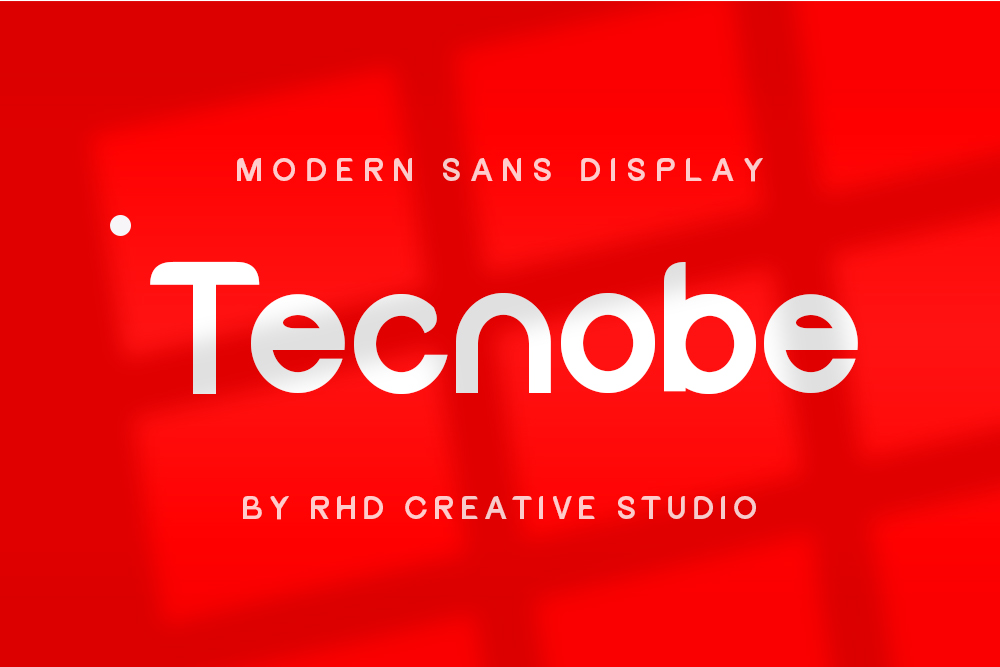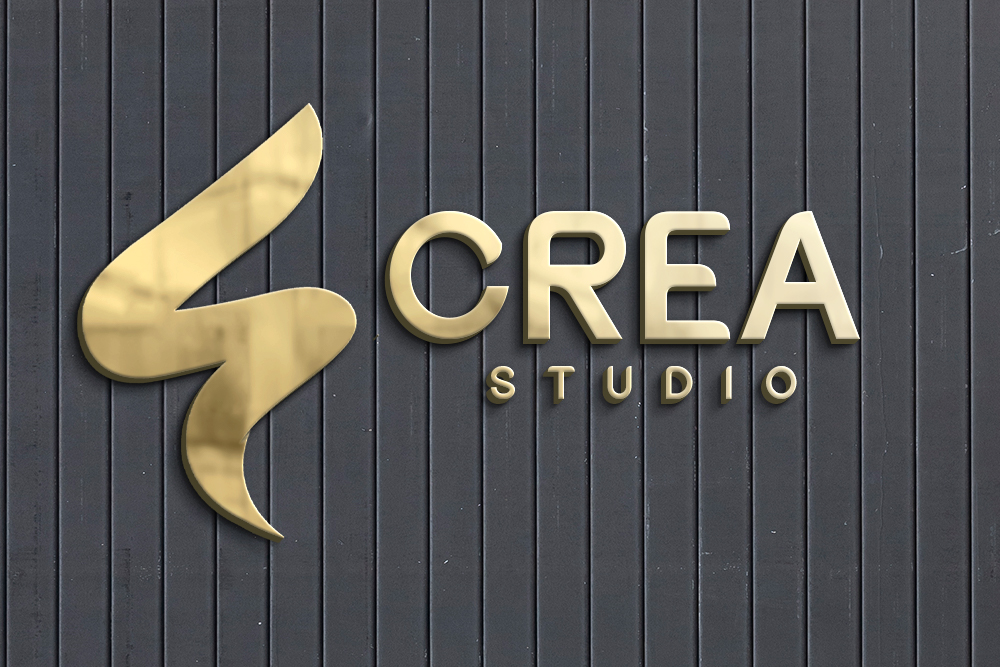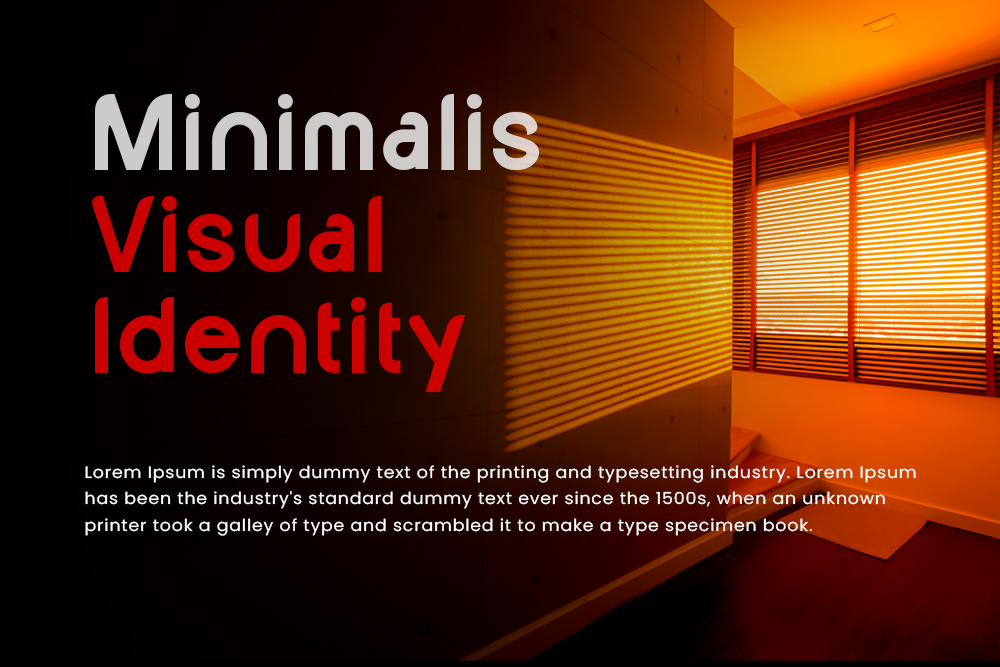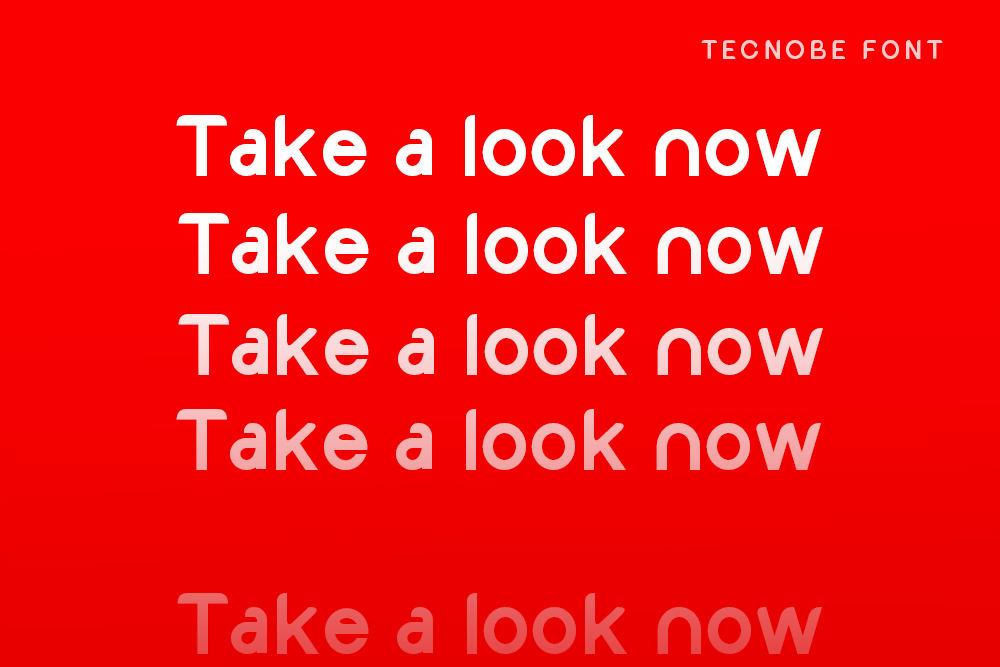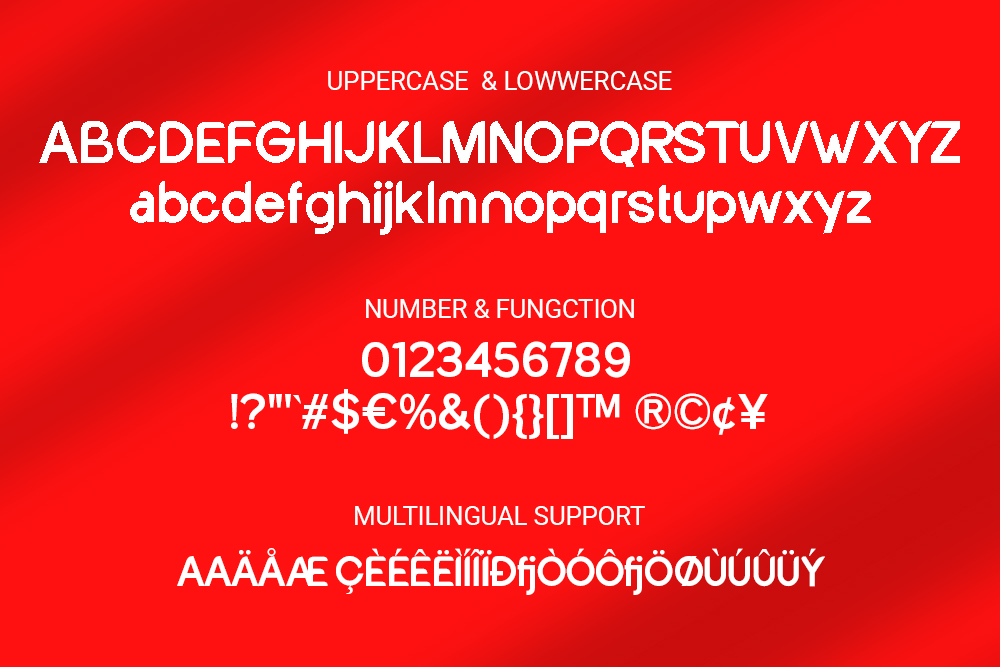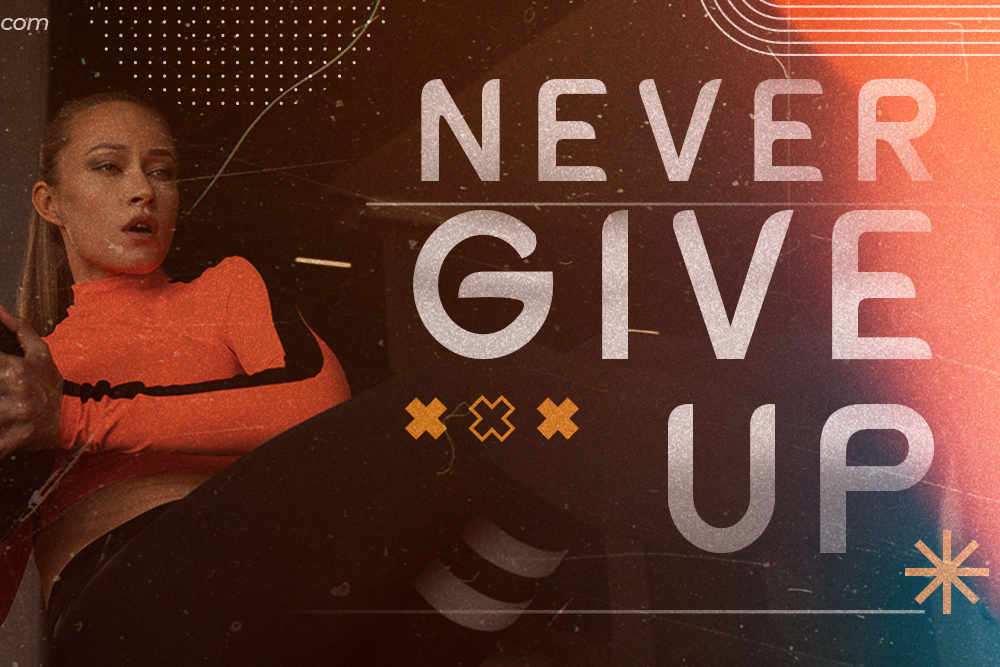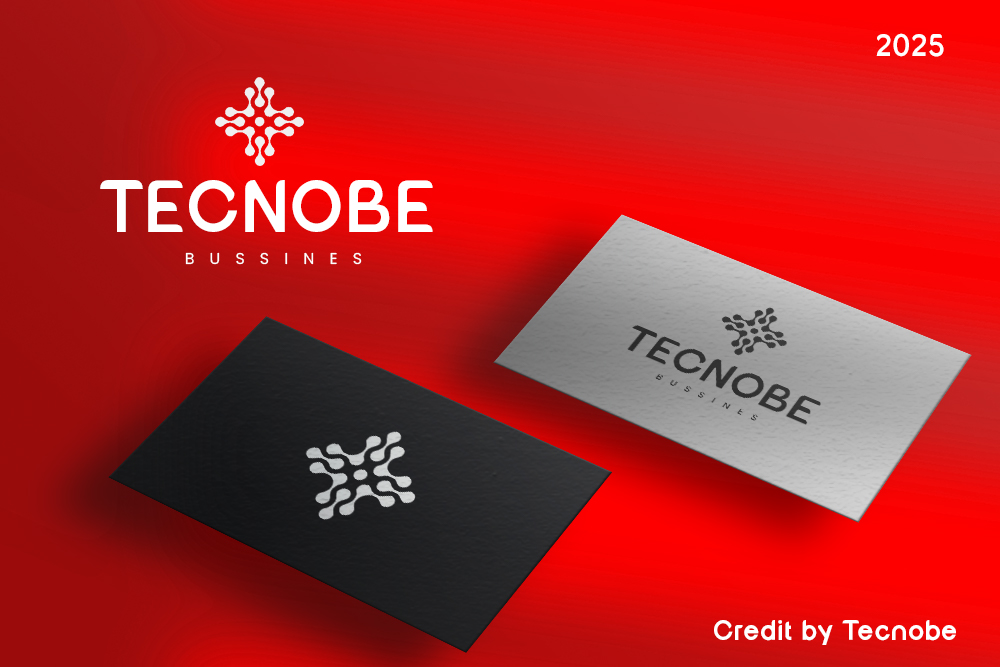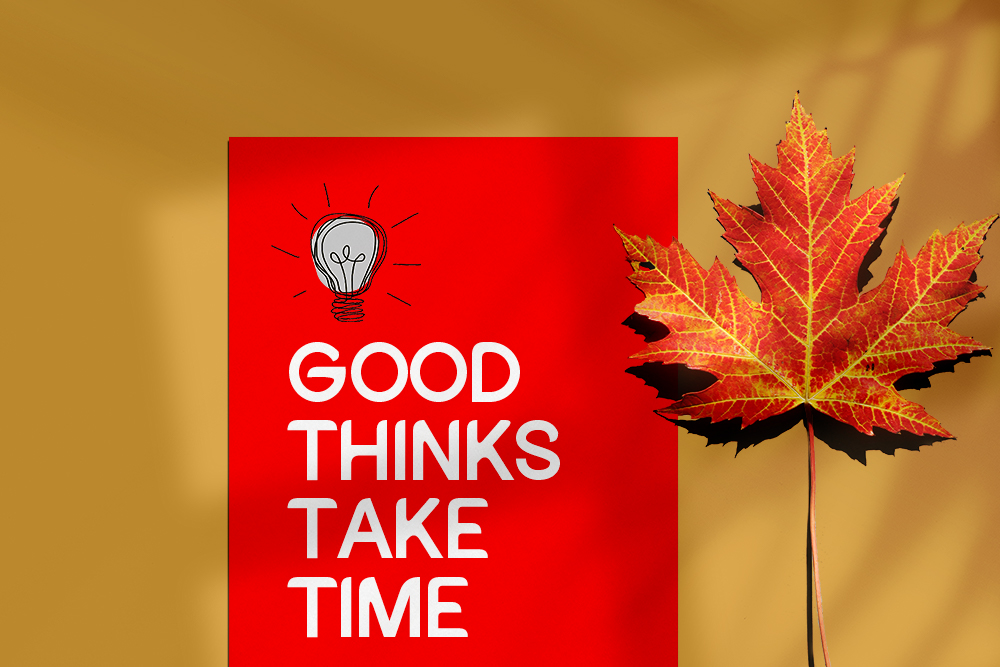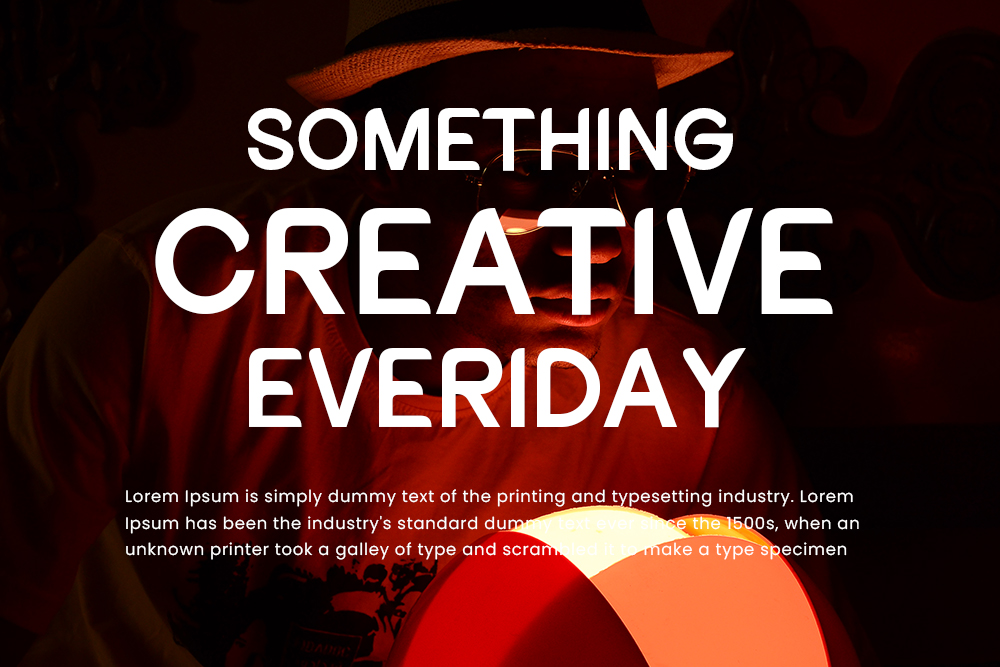
Tecnobe Modern Sans Display Font
Tecnobe Modern Sans Display Font with Handmade character. Tecnobe bring Modern Sans Display, Modern font to make your design project stand out! Tecnobe is a perfectly choice for any creative endeavor, creating, modern, chic, lifestyle design such as logotype, title, cover, branding, invitations, wedding designs, display and magazine, social media posts, advertisements, printed quotes, product packaging, corporate brand, product designs, labels, photography, watermarks, special events and any other project with modern touch.
FEATURES
– Uppercase and Lowercase letters
– Numbering and Punctuations
– Ligarure
– Multilingual Support